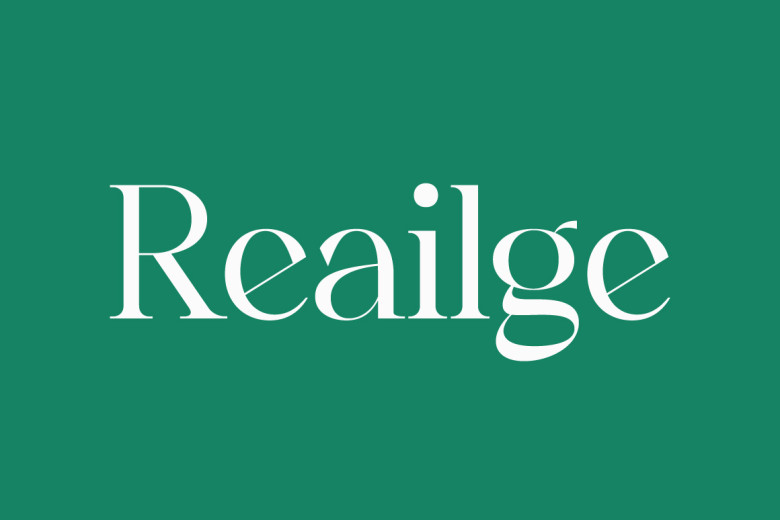
Reailge Font
Bownamost proudly present Reailge modern and classic serif font with modern style and unique look. Reailge is perfect for an elegant & luxury logo, book title design, movie title, fashion brand, magazine, clothes, lettering, quotes, and so much more you think suits. Treat yourself.
Reailge Serif Font